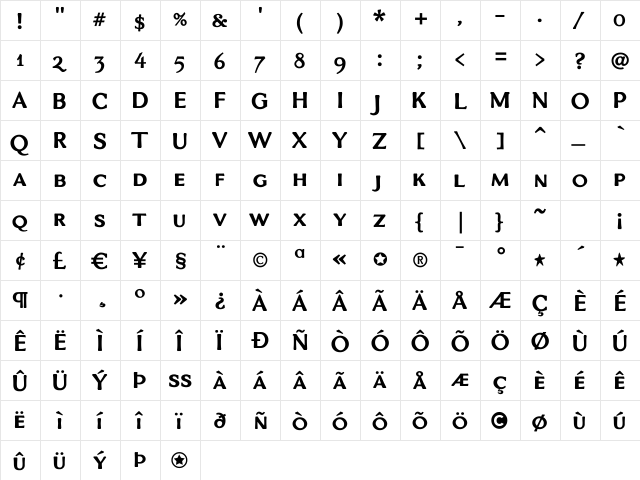
VenisSmall Caps Bold Regular
Design Context for VenisSmall Caps Bold Typeface
VenisSmall Caps Bold offers clean, dependable letterforms without strong stylistic allegiance, making it a practical choice for designers who need flexibility. The heavy weight commands attention and anchors typographic hierarchies.